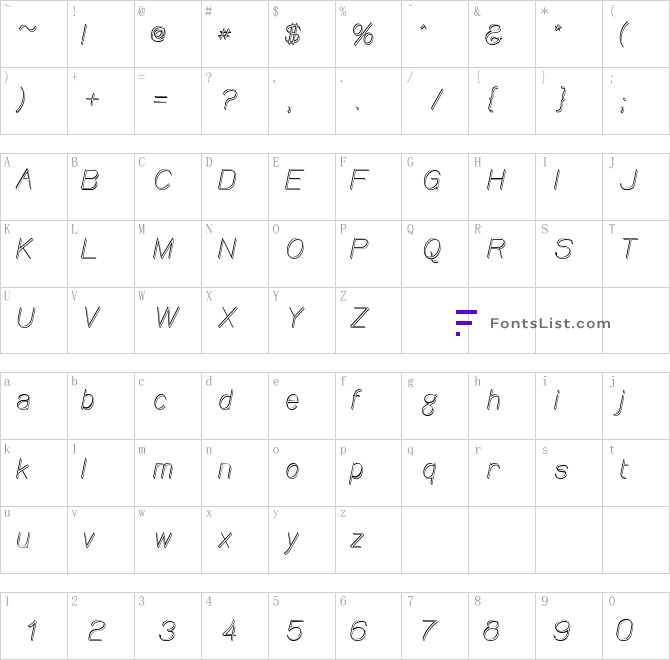
- Font Name:Canin Oblique
Canin-Oblique.ttf is a very beautiful artistic font, Canin-Oblique.ttf is widely used in the design and printing of various books and pictures,Canin-Oblique.ttf has a strong visual impact,Canin-Oblique.ttf is a commonly used font in newspapers, magazines and books, and is used in posters, e-commerce Poster design, store design, logo design, font design and other fields.Canin-Oblique.